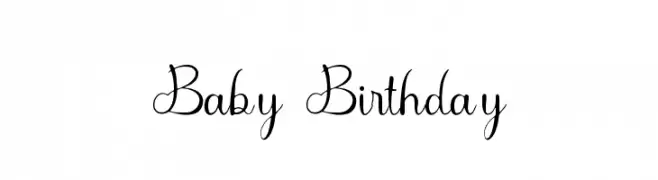
A whimsical, decorative font with curly accents and a playful style.
A playful, curly font with a hand-drawn, whimsical style.
A playful and whimsical font with curly, flowing letterforms and elegant loops.
A whimsical and playful font with curly embellishments and bold characters.
A playful and whimsical font with curly, decorative letterforms.
A whimsical and playful font with curly, looping strokes and elegant flourishes.
A playful, handwritten font with elongated, curly characters.
A whimsical, curly font with a playful, hand-drawn style.
A whimsical, curly font with consistent stroke thickness and playful loops.